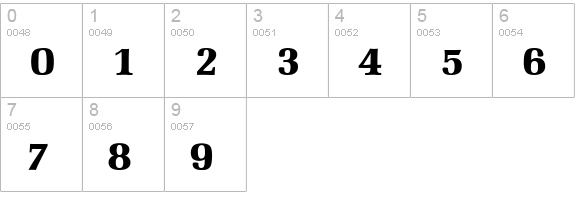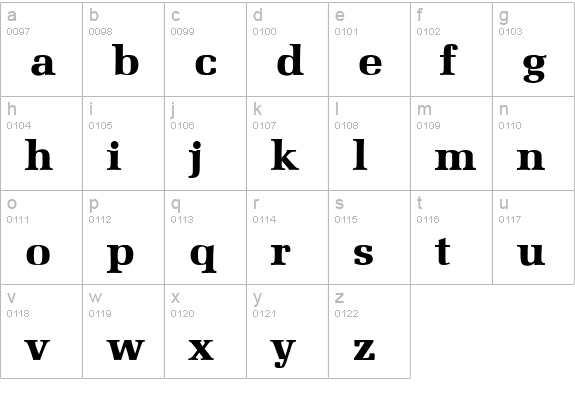
Broccus Display SSi Font Details
Broccus Display SSi font is a stunning and versatile typeface that commands attention with its bold and modern design. Perfect for headlines, titles, and other display purposes, this font exudes confidence and style. Its sharp edges and unique letterforms make it a standout choice for any design project. What makes Broccus Display SSi font even more appealing is that it is available for free download at FontsMarket.com. This means you can easily access this eye-catching font and elevate your designs without breaking the bank. Whether you're working on a poster, logo, website, or any other creative project, Broccus Display SSi font is sure to make a bold statement. Download it today and let your creativity shine!